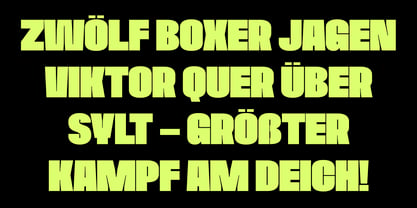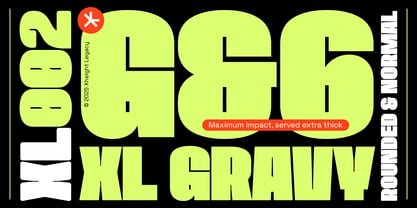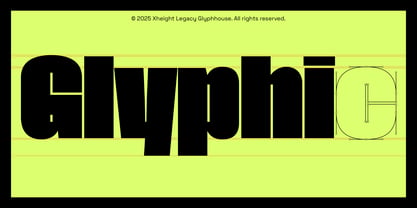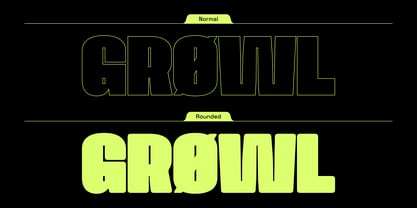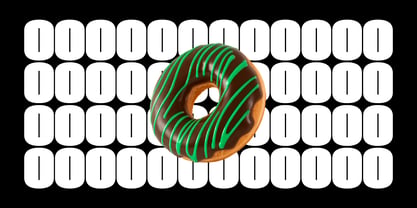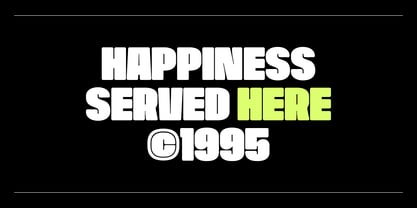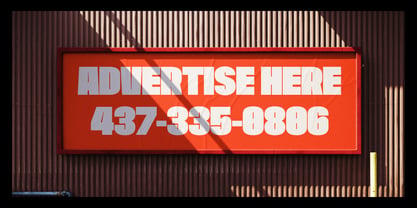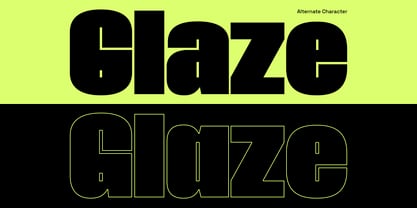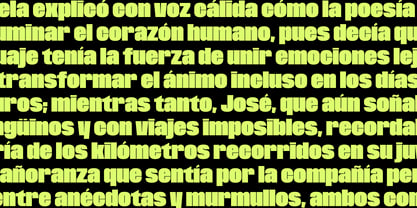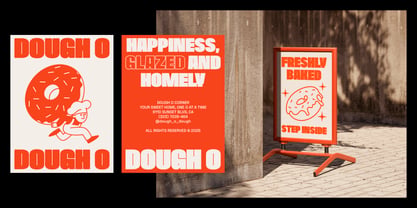
XL Gravy
by XHeight Legacy
The XL Gravy Font Family was designed by Friedrich Bernhardt and published by XHeight Legacy. XL Gravy contains 2 styles and family package options. More about this family
Gravy is a heavy, high-impact display typeface that pours personality onto the page. With its ultra-bold shapes, tight spacing, and unapologetically chunky curves, Gravy is built for headlines that demand attention. It carries the weight of brutalist design but with a smooth, flowing rhythm that keeps it approachable.  Available in two styles, Normal and Rounded, Gravy gives you the freedom to choose between sharp confidence and softer charm. Perfect for posters, logos, and campaigns that need to shout louder than the rest, Gravy isn’t just type, it’s a visual feast.
Designers: Friedrich Bernhardt
Foundry: XHeight Legacy